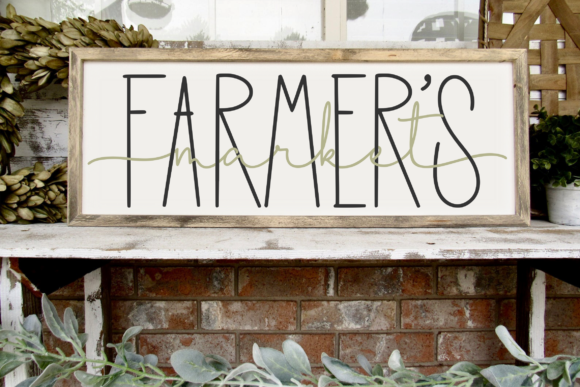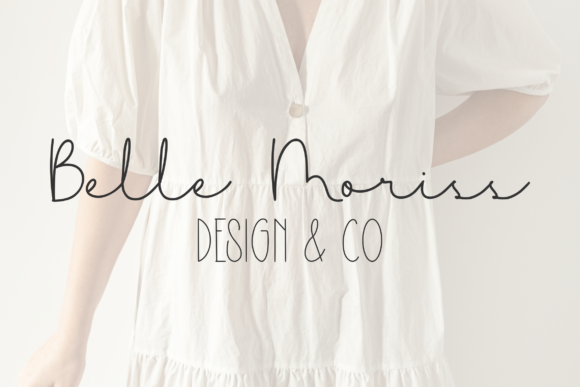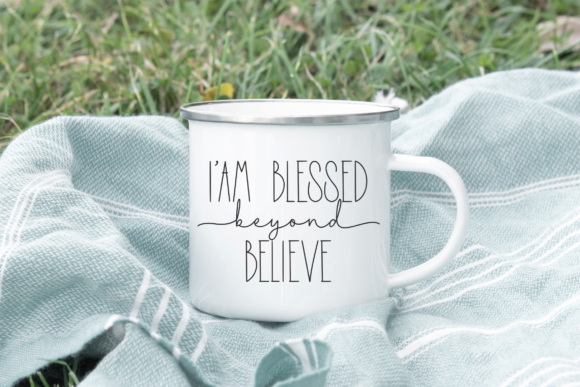
Adding a Touch of Rustic Charm to Your Creations
Have you ever been working on a project and suddenly, the perfect font pops into your head, elevating the entire design from ordinary to extraordinary? For me, it was a rustic-themed wedding invitation, and the font that brought it all together was the Farmhouse Greatness Font. This charming duo of fonts is designed to complement each other perfectly, adding a chic and cheery touch to your crafts.
The Farmhouse Greatness Font consists of two beautifully crafted fonts that can be used separately or together to create a unique and eye-catching design. With its PUA encoding, you can easily access all the glyphs and swashes, giving you endless possibilities for creative expression. Whether you’re a seasoned designer or a hobbyist, this font is a valuable addition to your toolkit, allowing you to bring your rustic-inspired ideas to life with ease.
Farmhouse Greatness Font Key Features
- Font Family: Farmhouse Greatness Font, a unique and rustic script font designed to evoke a sense of warmth and coziness.
- Size: The font is available in 1 style with 2 weights (Regular and Bold) to cater to different design needs.
- Unique Characteristics: Distinctive handwritten feel, subtle imperfections, and organic texture that adds a touch of personality to any design.
Farmhouse Greatness Font Review
As a designer, I was excited to try out the “Farmhouse Greatness Font”. I’ve worked with a variety of fonts in the past, but this one promised a unique blend of rustic charm and elegance. ✨
- Unique Character: The font’s distinctive style and flair make it perfect for designs that require a touch of personality.
- Legibility: Despite its unconventional look, the font is surprisingly easy to read, even at smaller sizes.
- Compatibility: I had no issues integrating the font into my design projects, whether it was a logo, poster, or website.
While the font has many redeeming qualities, there are a few limitations that should be considered. ⚠️
- Limited Weight Options: The font is only available in a few weight variations, which can make it difficult to achieve a consistent look across different design elements.
- Not Suitable for Small Text: Due to its ornate design, the font can become cluttered and difficult to read when used in small text sizes.
Overall, I think the “Farmhouse Greatness Font” is a solid choice for designers who want to add a touch of rustic charm to their projects. While it may not be perfect, its unique character and legibility make it a great option for the right designs.
Getting the Most Out of the Font
To get the most out of the Farmhouse Greatness Font, use it in combination with rustic or vintage-themed graphics and colors.
Experiment with different font sizes, colors, and styles to create a unique and eye-catching design.
The Farmhouse Greatness Font is commonly used for:
Wedding invitations and decor
Rustic or vintage-themed branding and marketing materials
Home decor and furniture labels